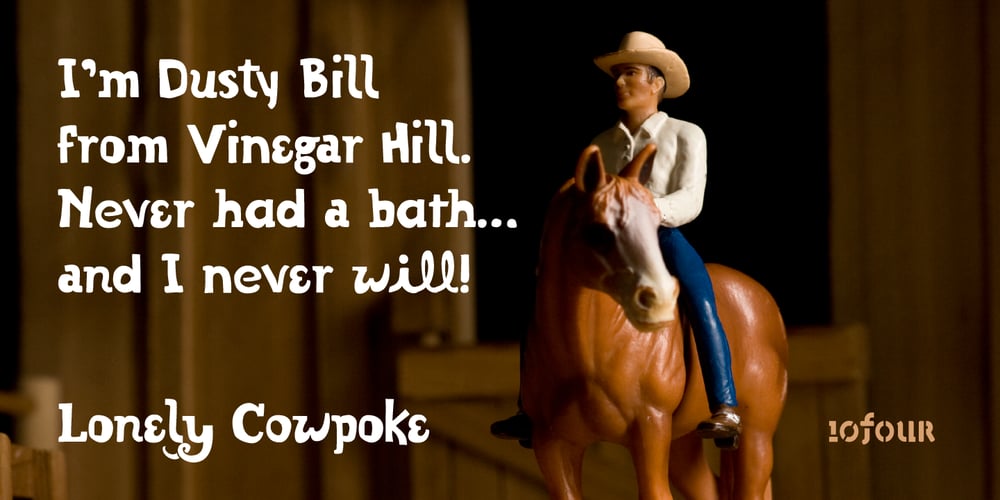
Lonely Cowpoke
Lonely Cowpoke font
Lonely Cowpoke Font Family was designed by Matt Heximer and published by 10four. Lonely Cowpoke contains 1 styles and family package options. Inspired by circus billboards, old west posters and torn paper constructs, “Lonely Cowpoke” is an oddity of bold graphic forms and cheerful curving lines. Revelling in its own quirky nature, this playful font lightens up any mood.